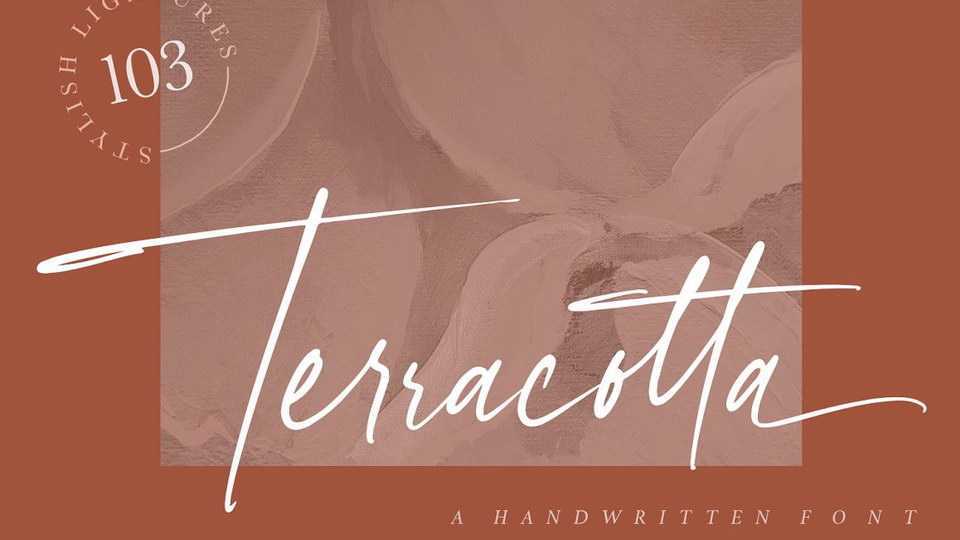
Download Terracotta font, a handwritten typeface with a signature style created by writing using a flat pen brush to produce a perfect handwriting character.